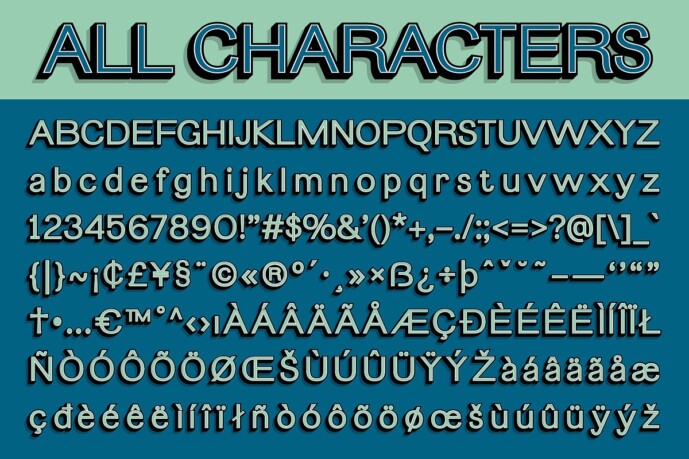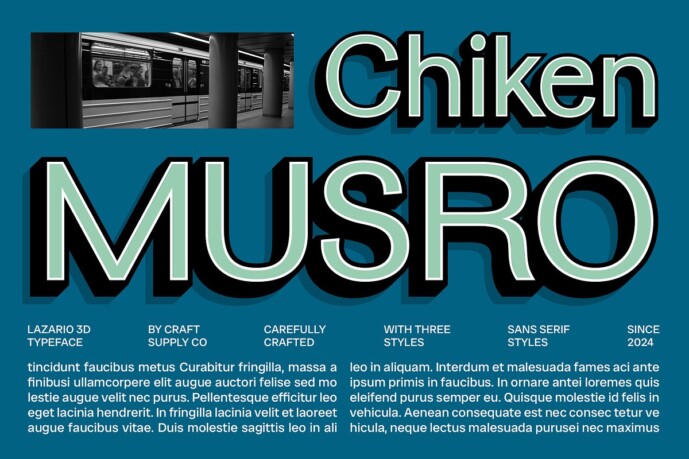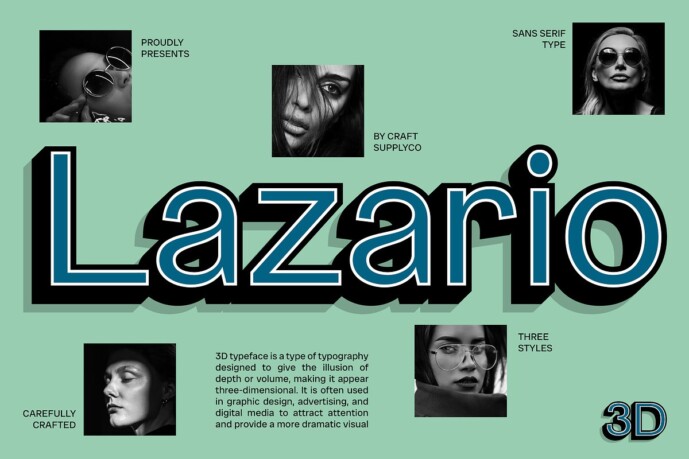
Lazario 3D Font
Designer: Craft Supply Co.
Lazario 3D Font is a modern sans serif font characterized by its contemporary grotesque shape, offering a clean and minimal design. With simple lines and subtle uniqueness in its letterforms, this font embodies sophistication and clarity, making it an excellent choice for various design projects. Its sleek appearance conveys professionalism while allowing for creative expression.
Engaging 3D Effect for Visual Depth The standout feature of Lazario 3D is its captivating three-dimensional effect, which adds engaging visual depth to its clean design. This dynamic element not only enhances the font’s aesthetic appeal but also creates a sense of movement, making it perfect for modern branding, advertising, and digital media. The 3D effect elevates the overall impact of your designs, drawing attention and captivating viewers.
Versatile for Multiple Applications Designed for versatility, Lazario 3D is ideal for a wide range of applications, from eye-catching logos to striking promotional materials. Its contemporary feel ensures it shines in both creative and professional contexts, making it a valuable addition to any designer’s toolkit. Despite its bold appearance, Lazario 3D maintains excellent readability, ensuring that your message is communicated effectively.